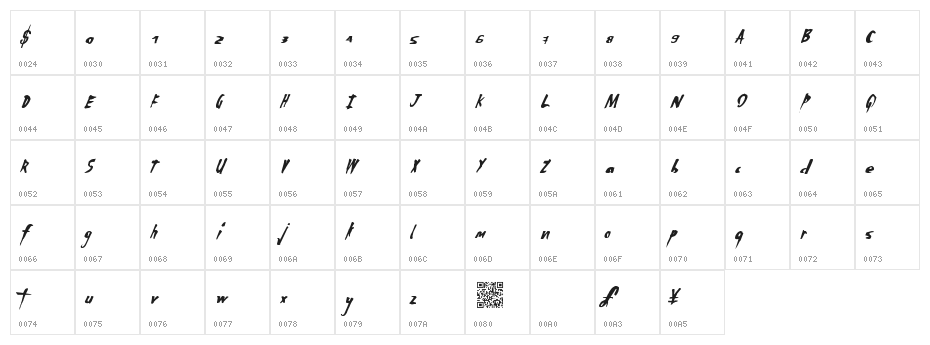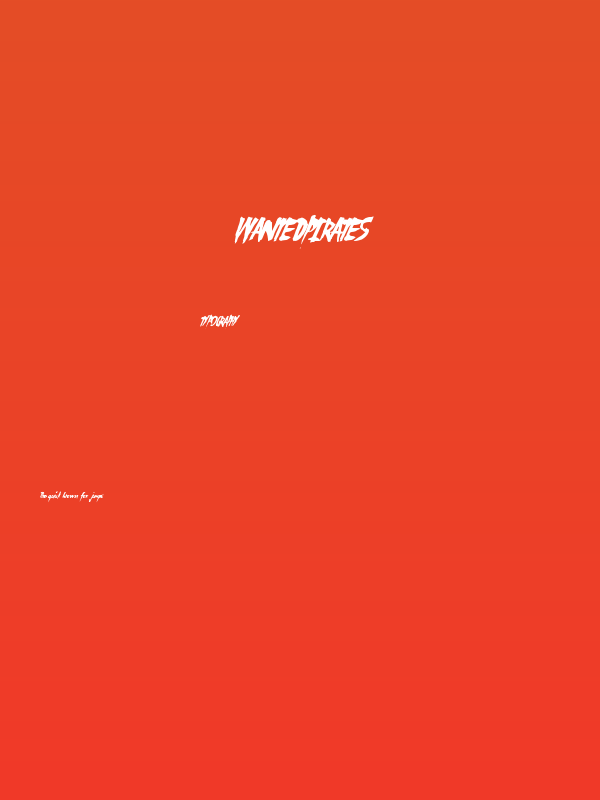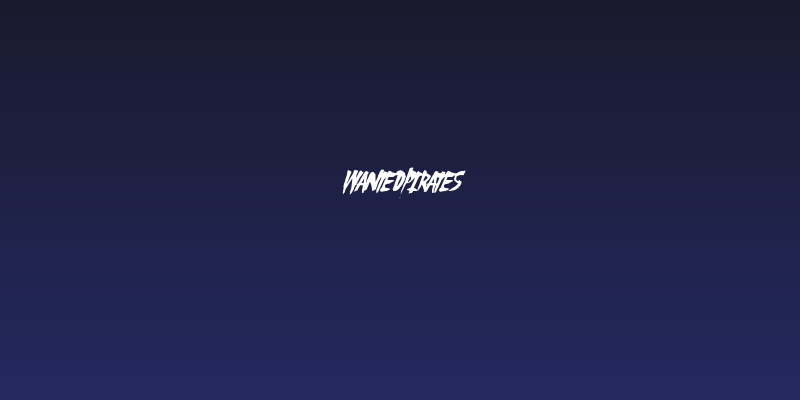
WantedPirates Font
✎ Thick
| 使用场景 | Headlines, Logos, Themed Events |
| 推荐项目 | Ideal for pirate-themed events, adventure book covers, escape room branding, or any project needing a daring, adventurous feel. |